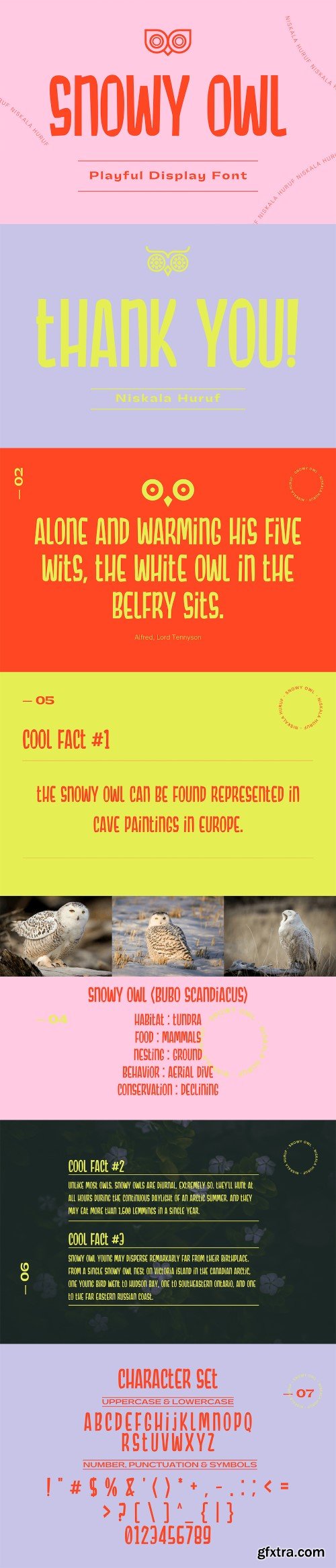
雪owl字体
Snowy Owl is a delightful, playful, and eye-catching display font that's perfect for any design that needs a touch of whimsy. Whether you're creating cartoon characters, children's games, or any other design that calls for a fun and festive feel, Snowy Owl is the font for you.
Features:
- All Uppercase
- Punctuation & Number
- Multilingual Support ÀÁÂÃÄÅÆÇÐĐÈÉÊËÌÍÎÏŁÑÒÓÔÕÖØŒŠÙÚÛÜŸÝŽàáâãäåæçđèéêëìíîïłñòóôõöøœšùúûüýÿž